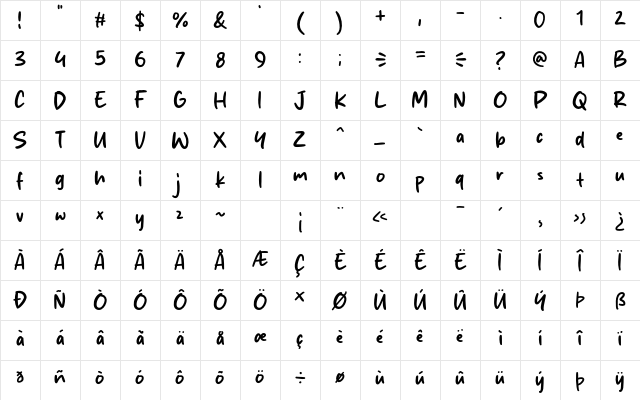
Fried Nuget Regular Free Font
Fried Nuget Regular
Design Context for Fried Nuget
Fried Nuget is a composed and adaptable typeface that performs quietly and consistently across a wide range of design contexts.
Pro Tip: Use Fried Nuget in both headline and body roles to test its range before committing to a single application.